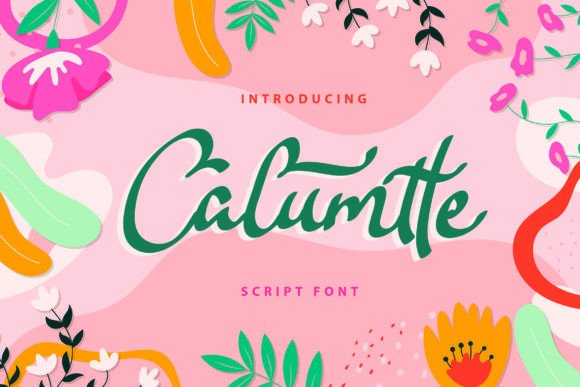
The Designer’s Delight: Calumtte Font
I’ll never forget the time I was working on a project for a high-end fashion brand, and I was struggling to find the perfect font to match their luxurious aesthetic. The client was adamant that the font had to be elegant, sophisticated, and timeless. I scoured the internet, tried out countless fonts, but nothing seemed quite right. That was until I stumbled upon Calumtte Font. ✨
It was love at first sight! The unique, hand-lettered look, the fluid strokes, and classical curves all came together to create a truly stunning font. I knew immediately that it was the perfect fit for my project, and I couldn’t wait to share it with my client. In this article, I’ll be sharing my experience with Calumtte Font, its features, and how to make the most of it in your designs.
• ✨ Unique, hand-lettered look that adds a touch of class and elegance to any design
• ✅ Fluid strokes and classical curves provide a timeless, classic look
• 🔥 PUA encoded, making it easy to access all glyphs and swashes
While Calumtte Font is an amazing addition to any design project, there are a few things to keep in mind. 🤔
• ⚠️ Some users may find the font a bit tricky to pair with other fonts, so experimentation is key
• ⚠️ The font’s vintage feel may not be suitable for very modern or minimalist designs
Calumtte Font was inspired by the classic calligraphy of the 18th century. The designer, who wishes to remain anonymous, was fascinated by the elegant, flowing scripts of this era and sought to create a font that would capture the essence of this timeless style. The result is a font that’s both vintage and modern, with a unique, hand-lettered look that’s sure to add a touch of class and elegance to any design.
Q: What is Calumtte Font?
A: Calumtte Font is an exclusive and vintage script font that’s perfect for adding a touch of class and elegance to any design.
Q: Is Calumtte Font PUA encoded?
A: Yes, Calumtte Font is PUA encoded, making it easy to access all glyphs and swashes.
Q: Can I pair Calumtte Font with other fonts?
A: Yes, Calumtte Font can be paired with other fonts, but experimentation is key to finding the perfect combination.